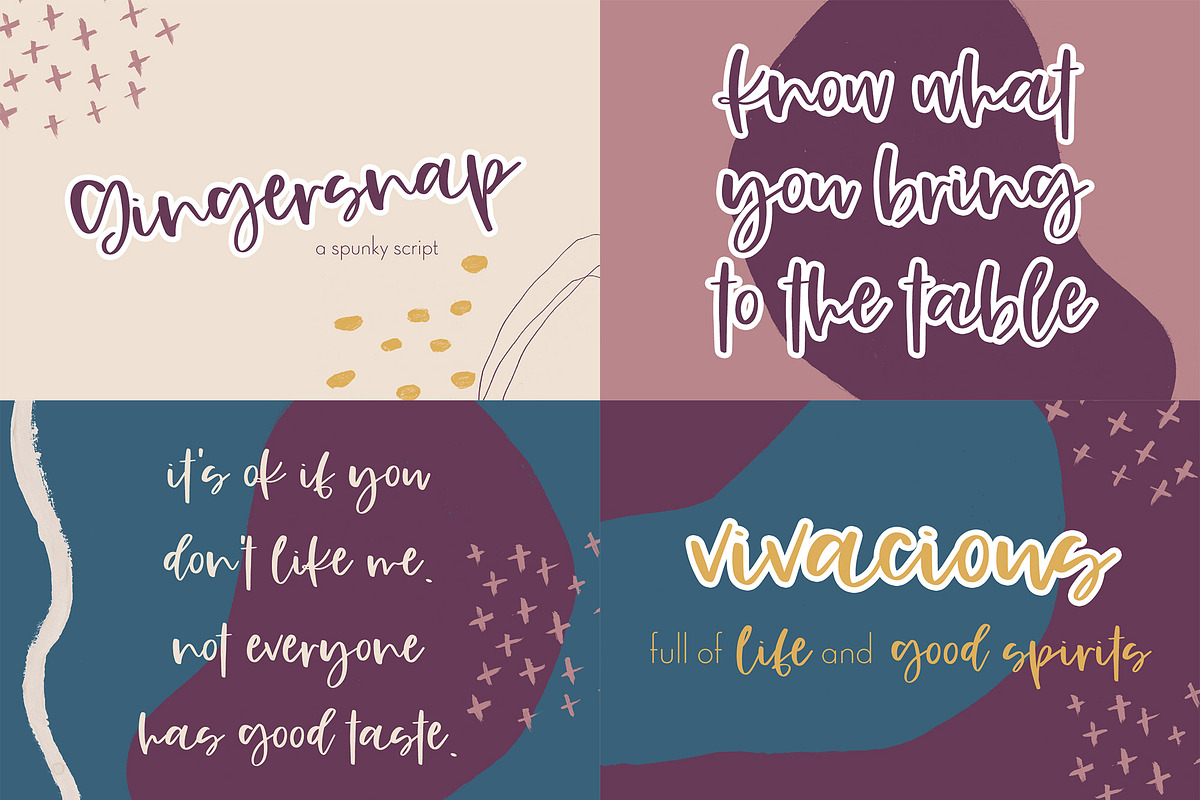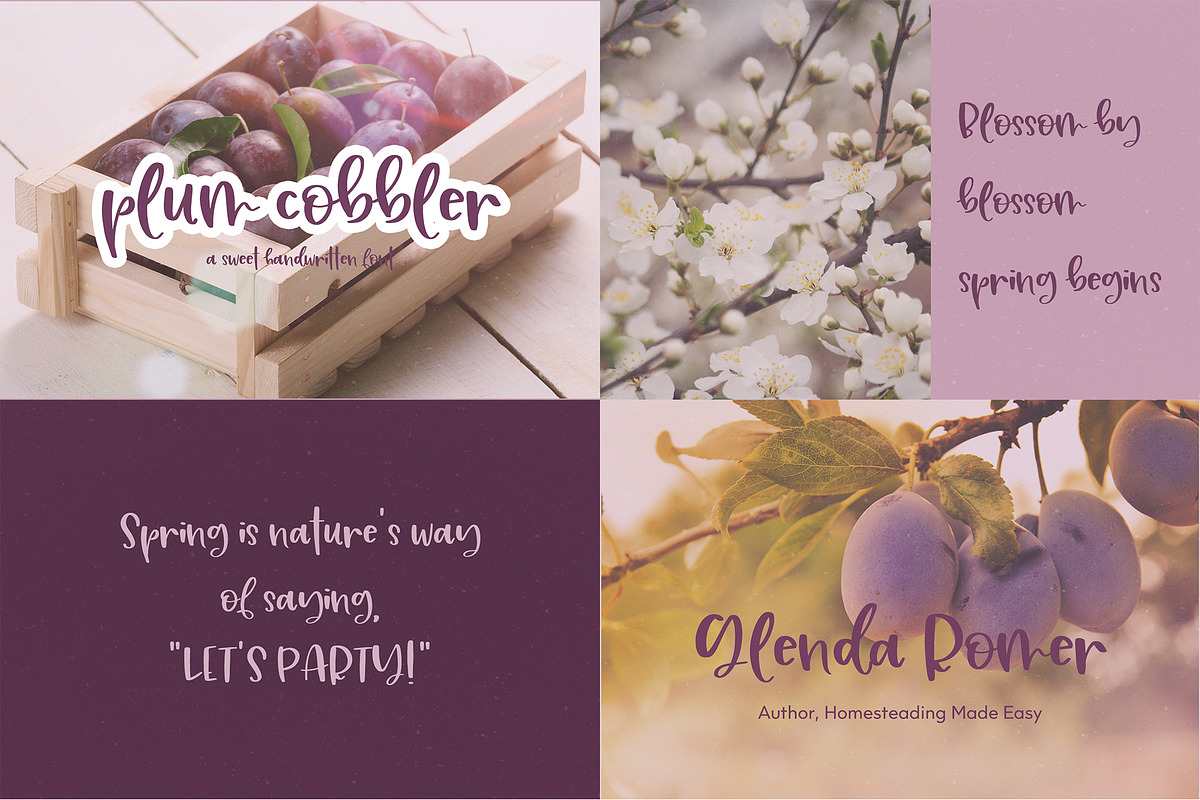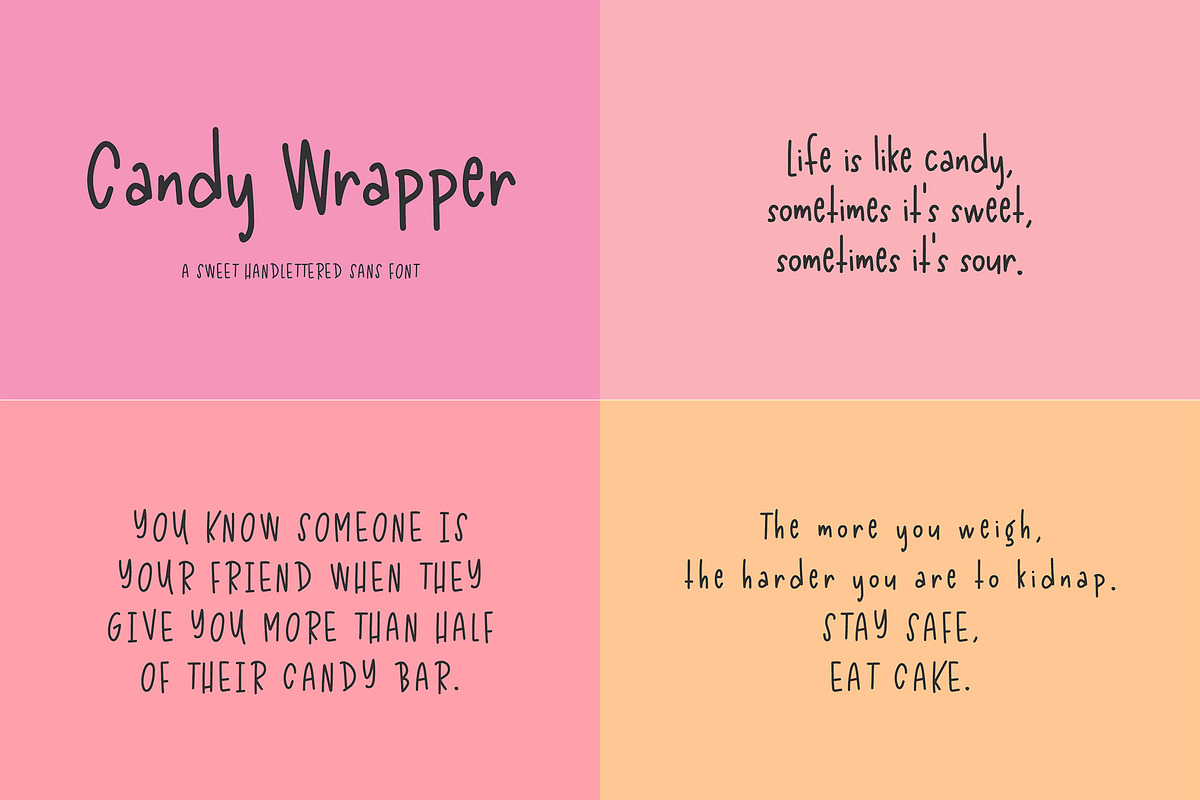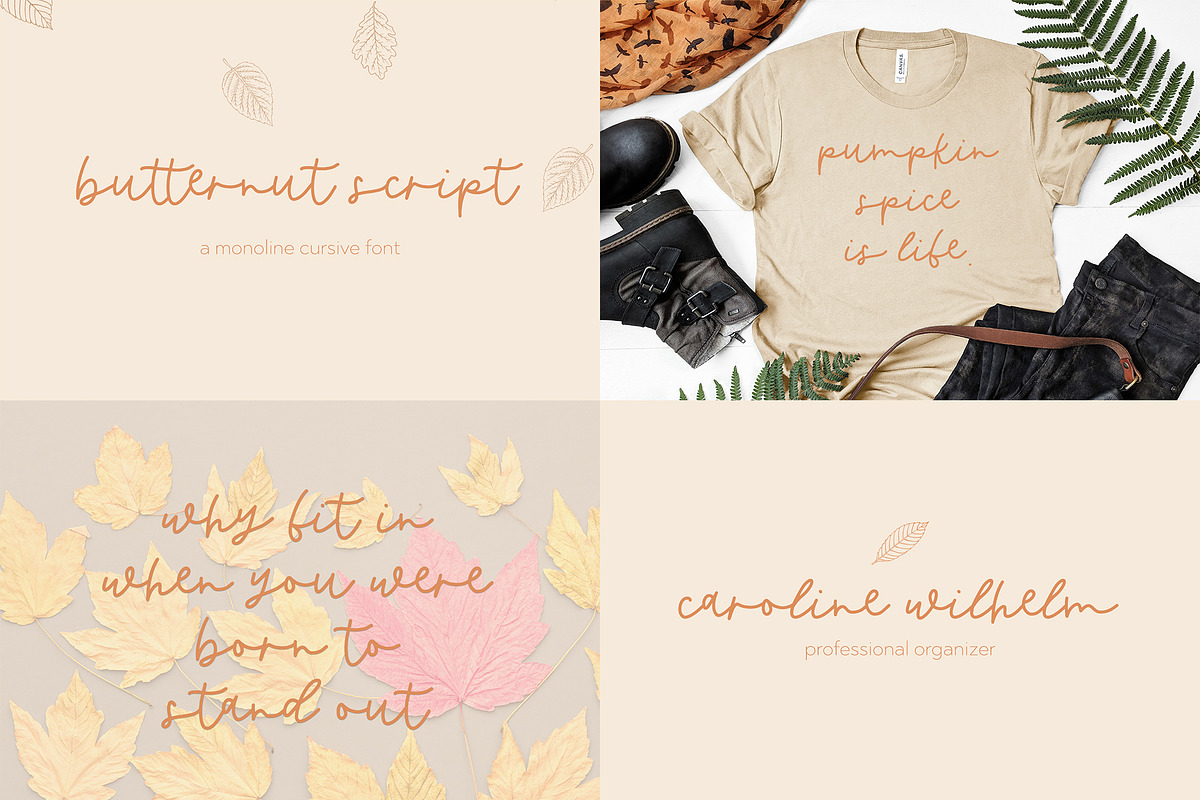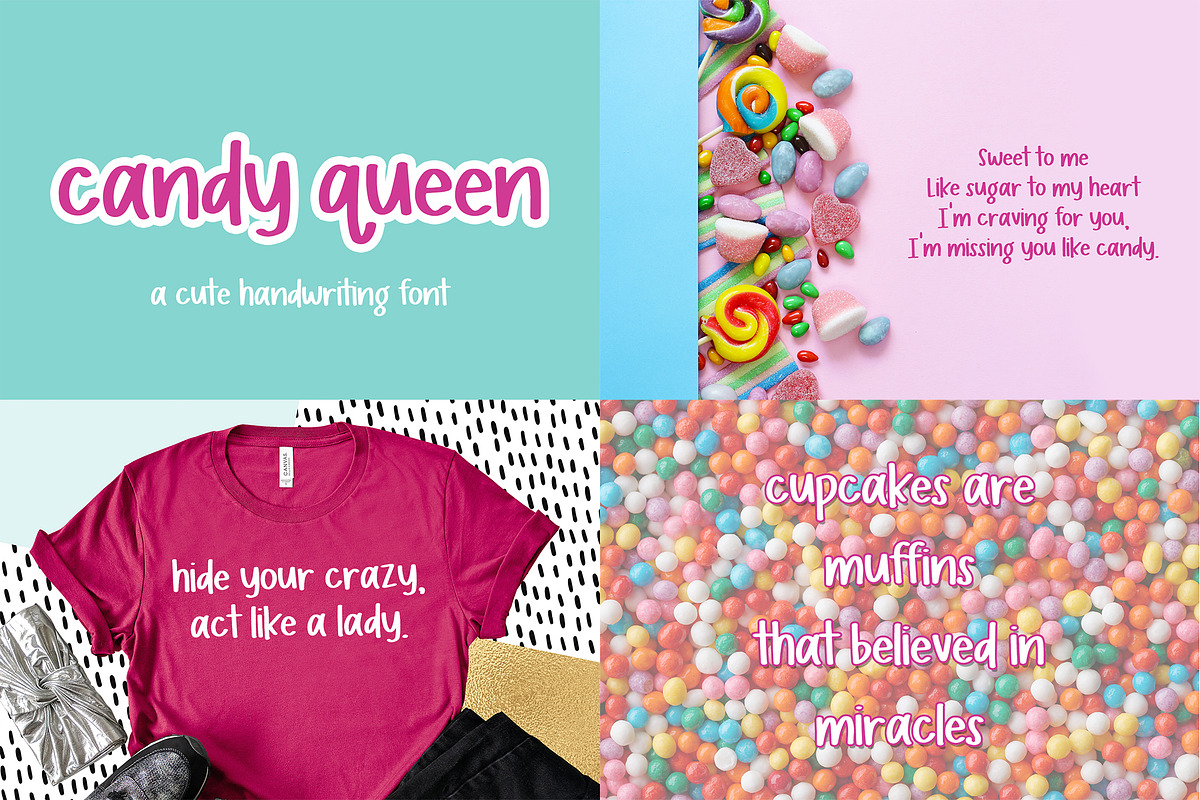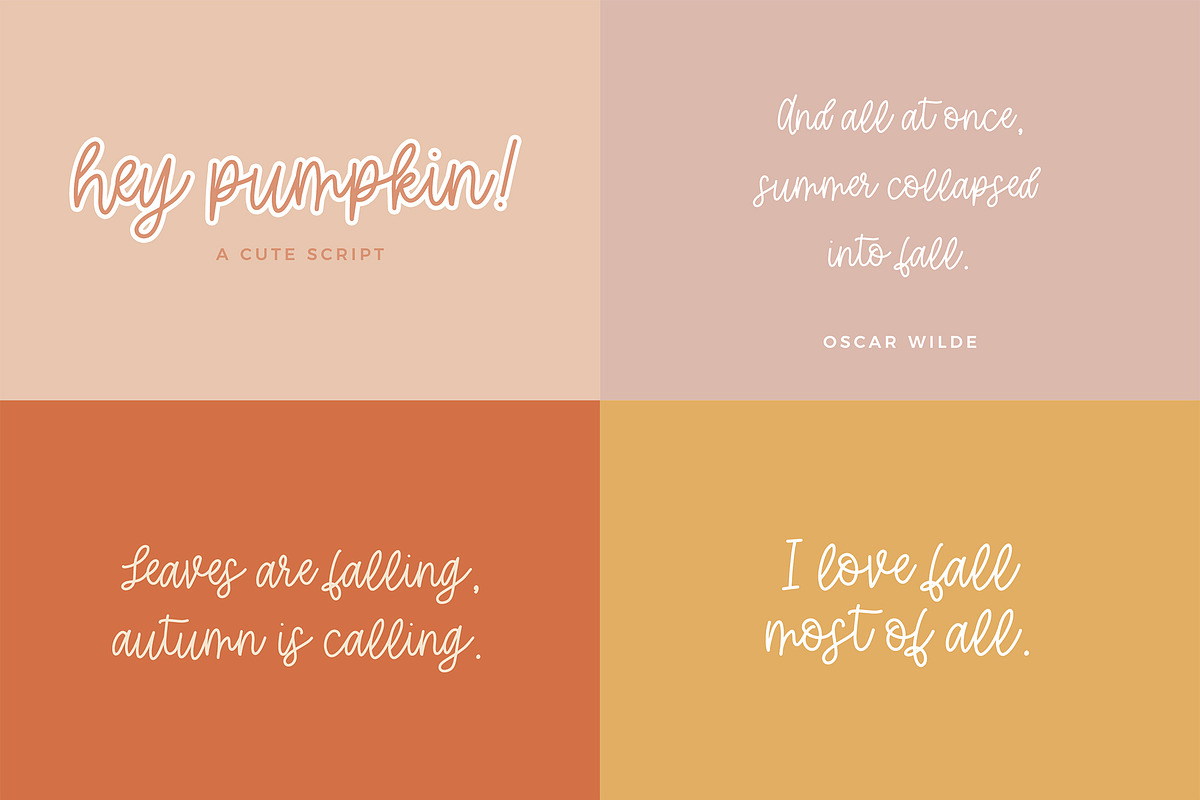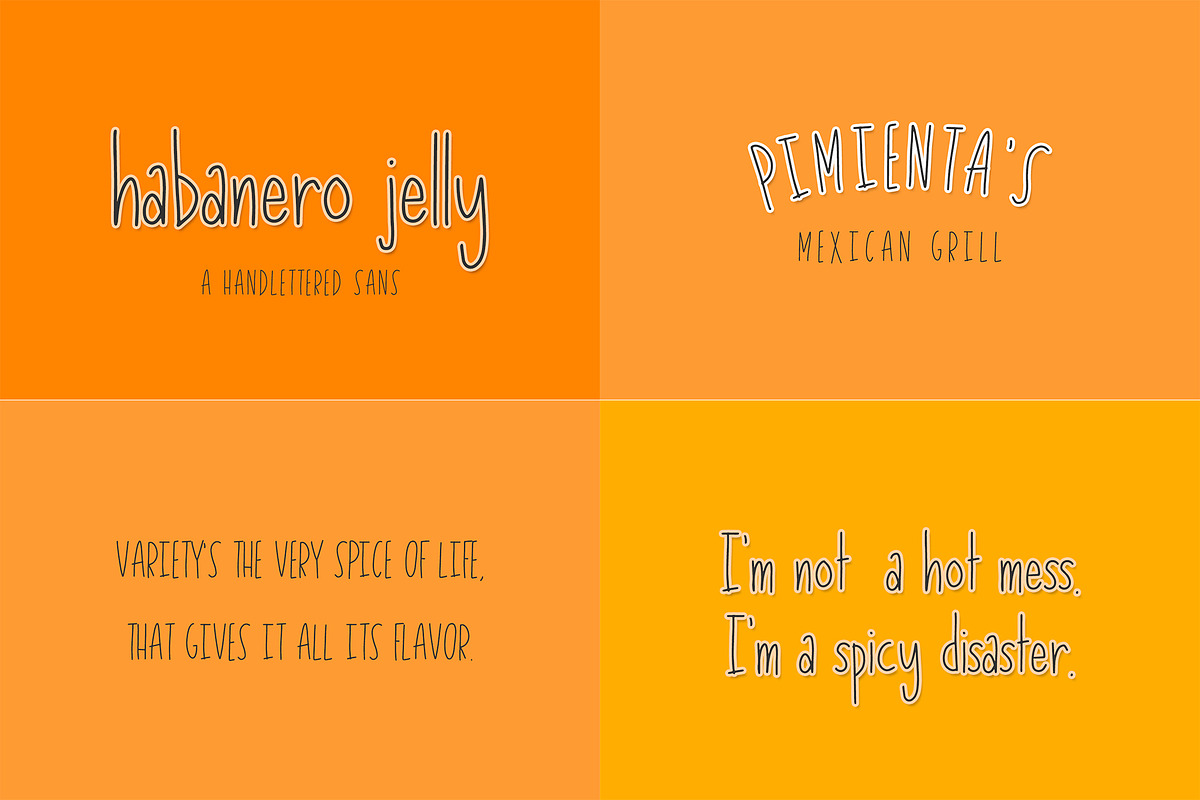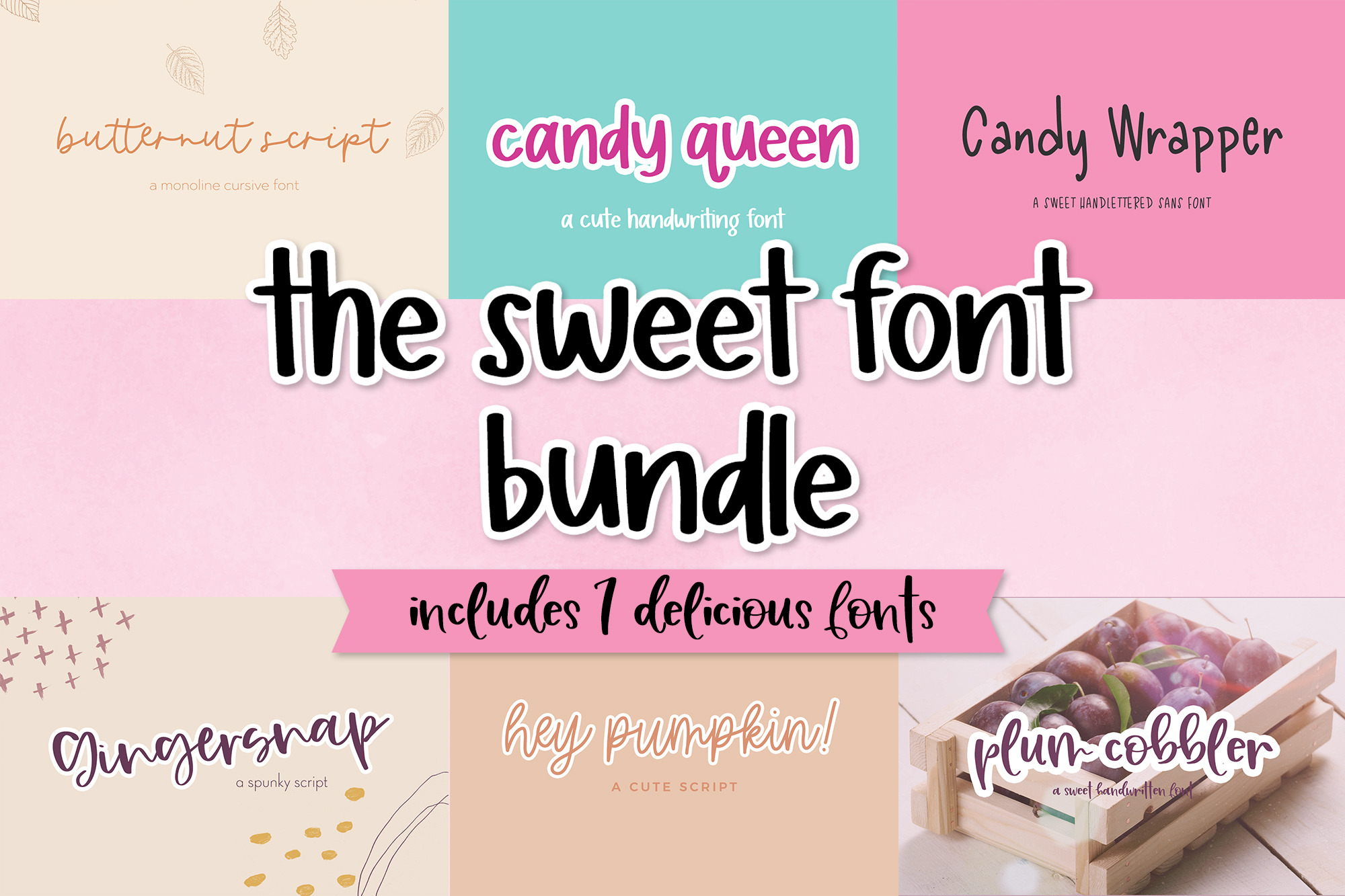
The Sweet Font Bundle
Introducing the Sweet Font Bundle!
Enjoy 7 fonts super fun script & sans fonts with a smooth edge, perfect for vinyl cutting & weeding projects of all types. All handlettered, these fonts will be perfect for logos & branding, website elements, quote graphics, and crafting projects on your Cricut or Silhouette machine!
This bundle includes:
- Hey Pumpkin Script
- Habanero Jelly Sans
- Butternut Script
- Candy Queen Sans
- Plum Cobbler Script
- Gingersnap Script
- Candy Wrapper Sans